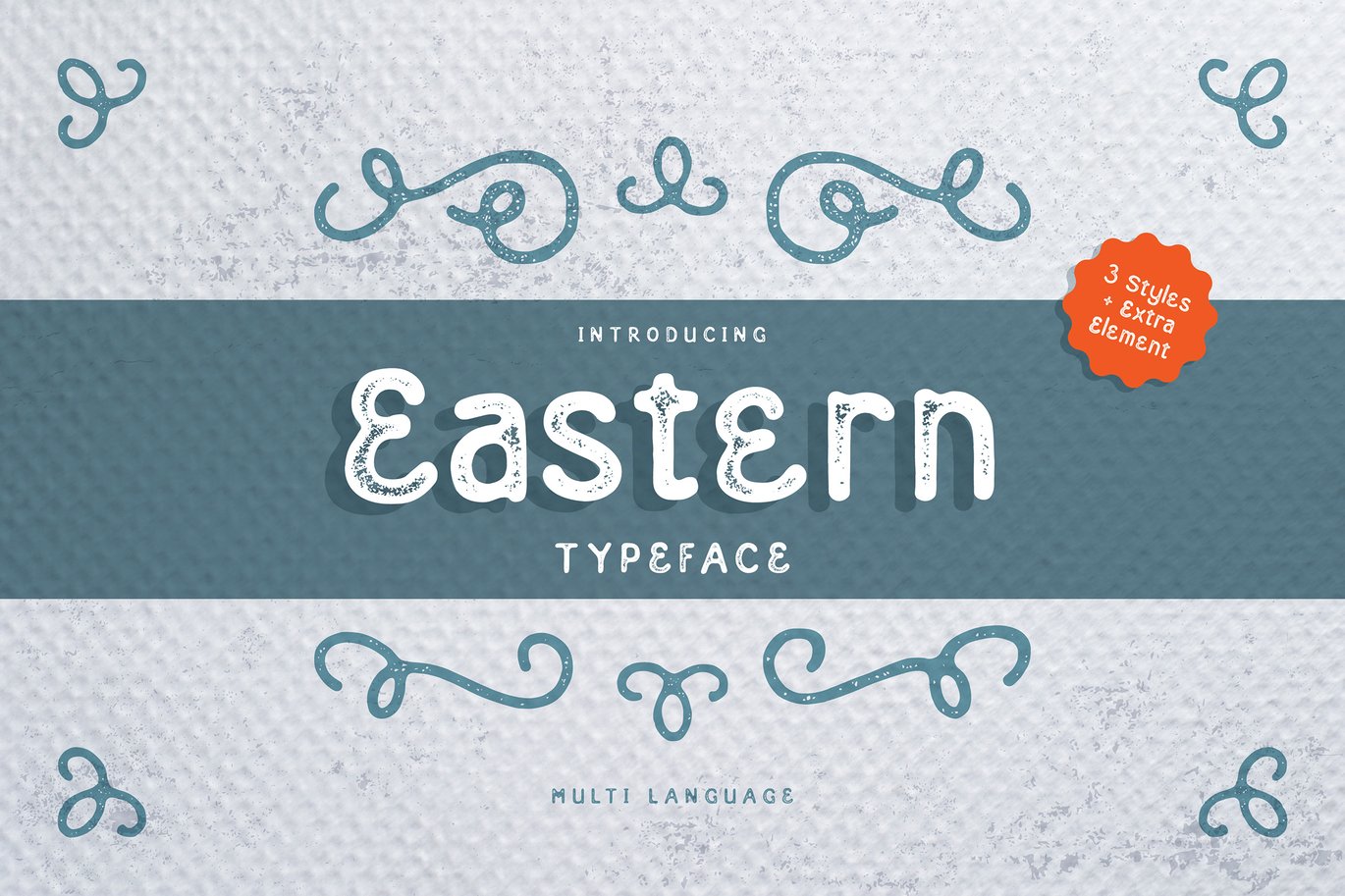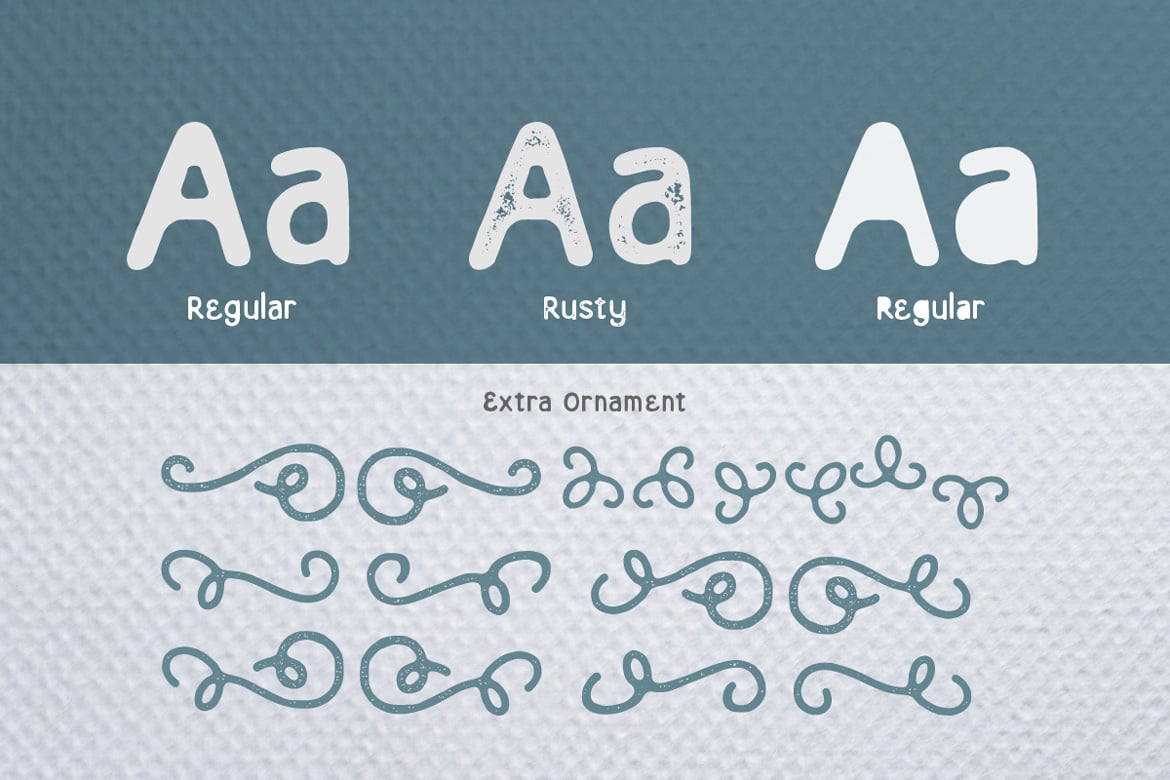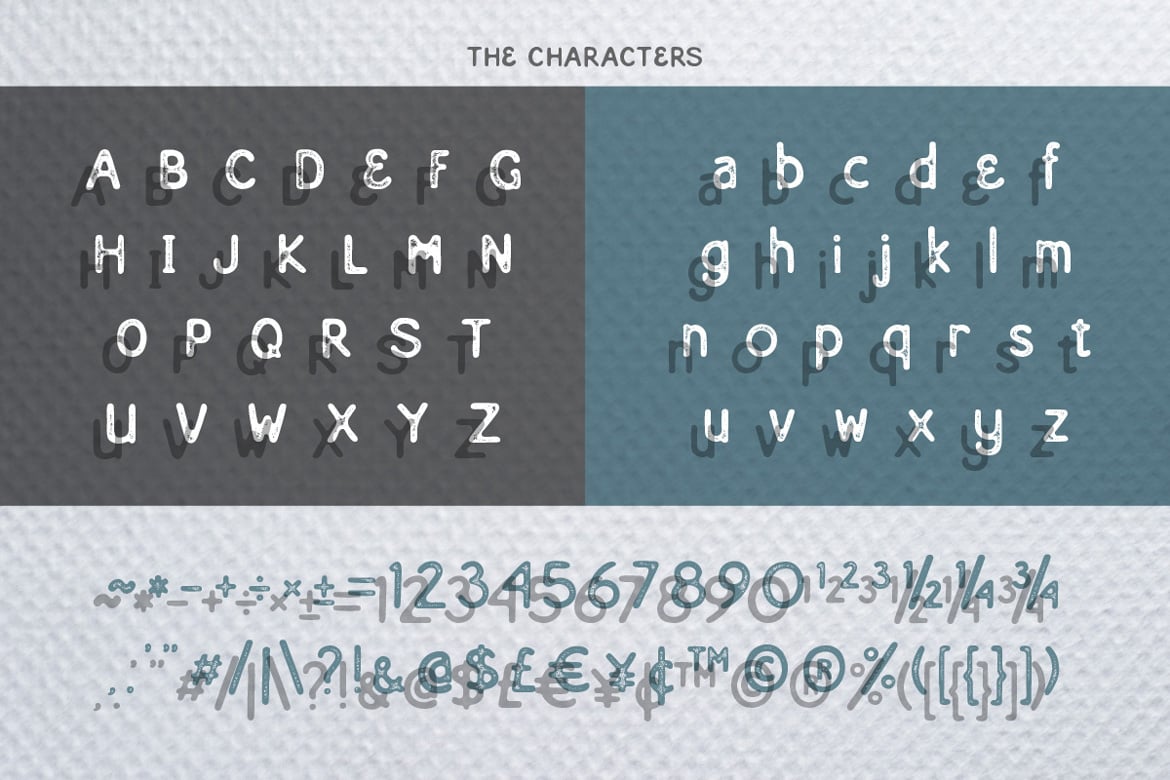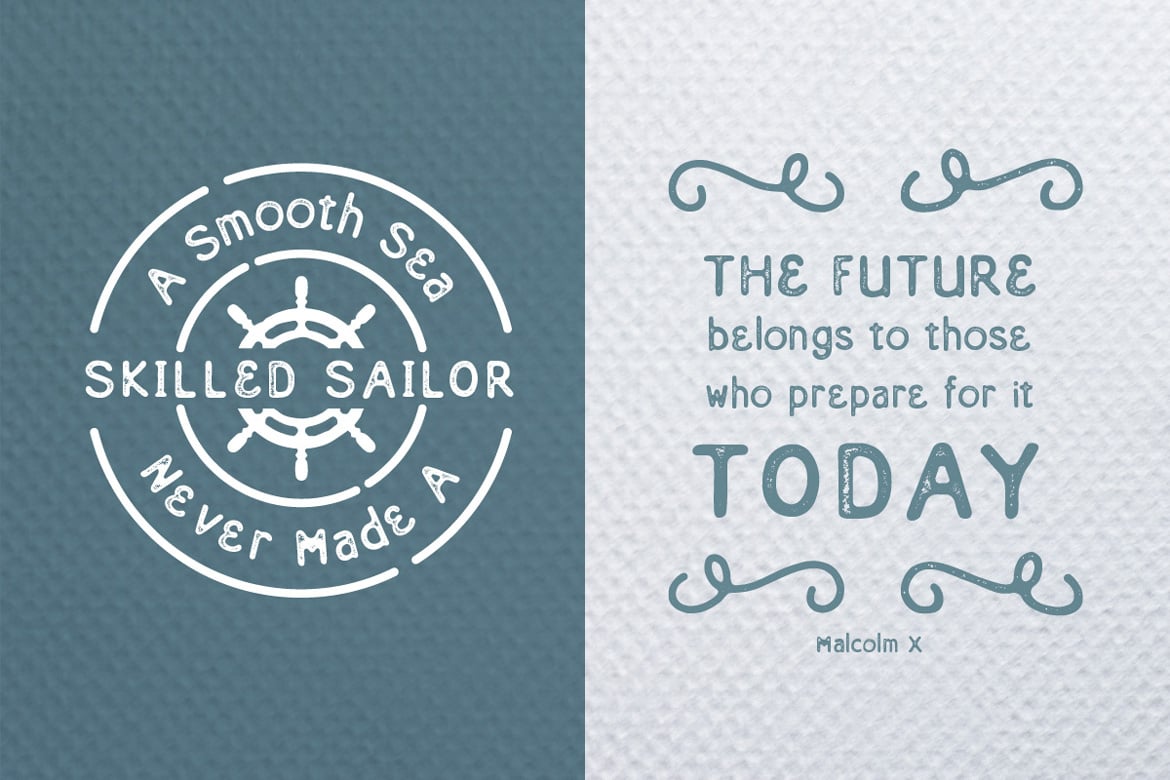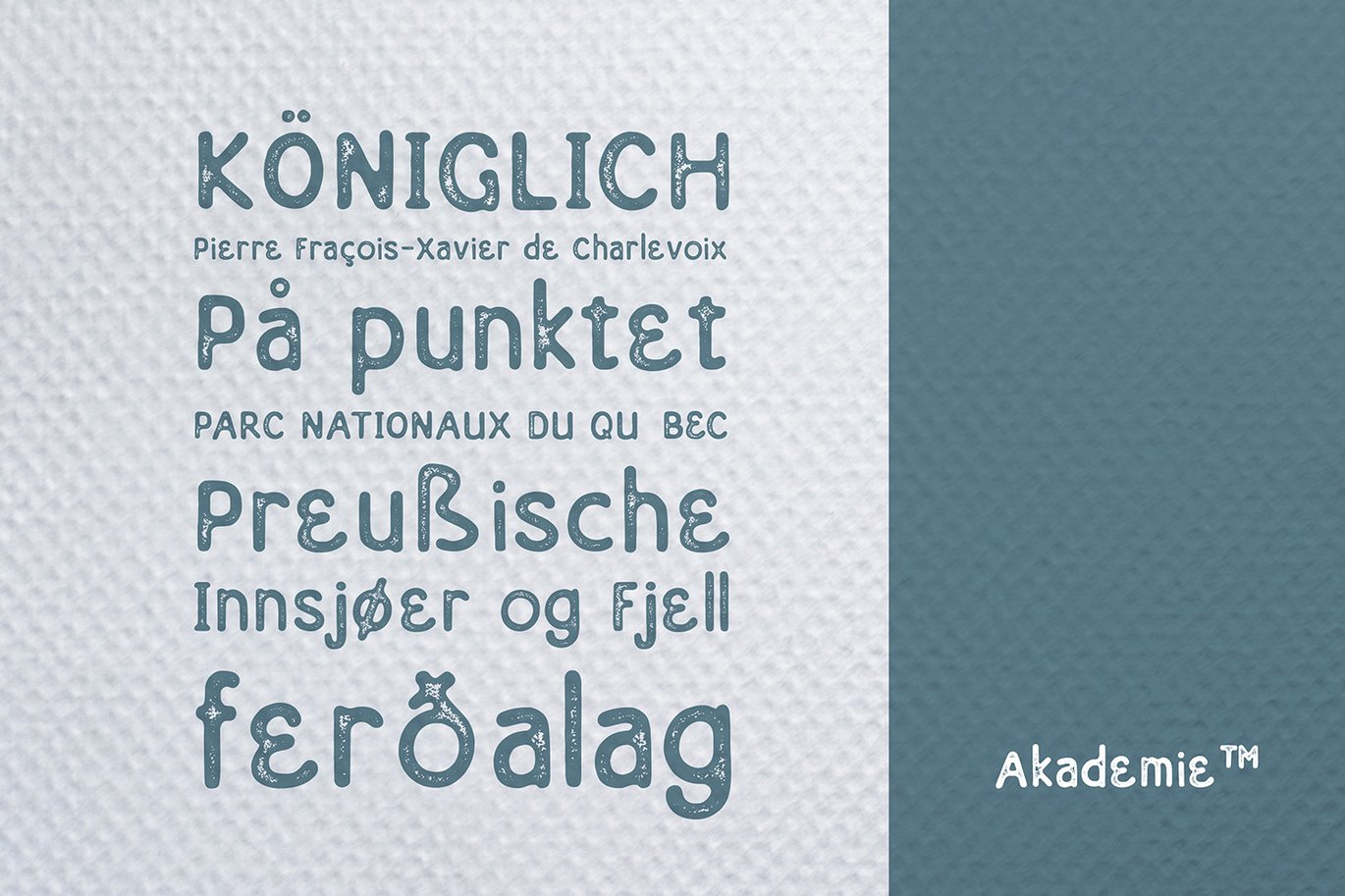
Eastern Typeface
Introducing
Eastern typeface
Eastern family sans serif fonts designed with a vintage print look. Rounded edges and imperfections were added to the characters to give a vintage vibe. The font family also works great for creating quotes, title, and still legible in a bunch of text. For those looking for some peculiar characters, available on blind and rusty texture versions as well. Add some Ornament to complete your vintage print look.
Eastern family:
Regular, Blind, Rusty, and Ornament.